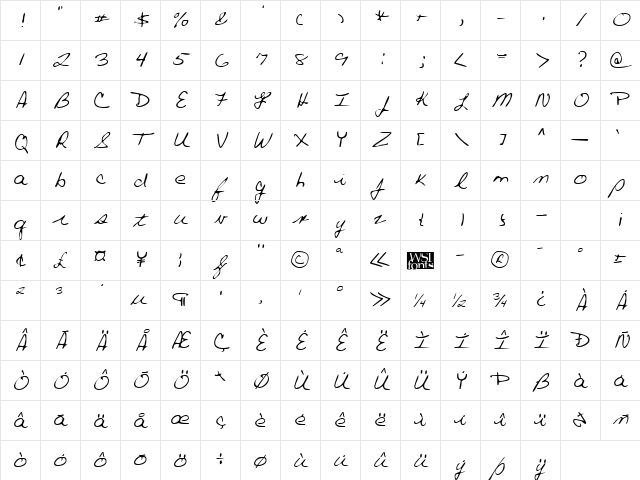
AubreysHand Regular Free Font
AubreysHand Regular
Design Context for AubreysHand
AubreysHand flows with the natural rhythm of handwritten lettering, making it ideal for designs that call for warmth and personal expression.
Font Pairing: Combine AubreysHand with a simple geometric sans for maximum contrast - the tension between flowing curves and clean structure is a classic typographic pairing.
Pro Tip: Use AubreysHand for short runs of text - names, titles, or taglines. Extended body copy in script faces tires the eye quickly.